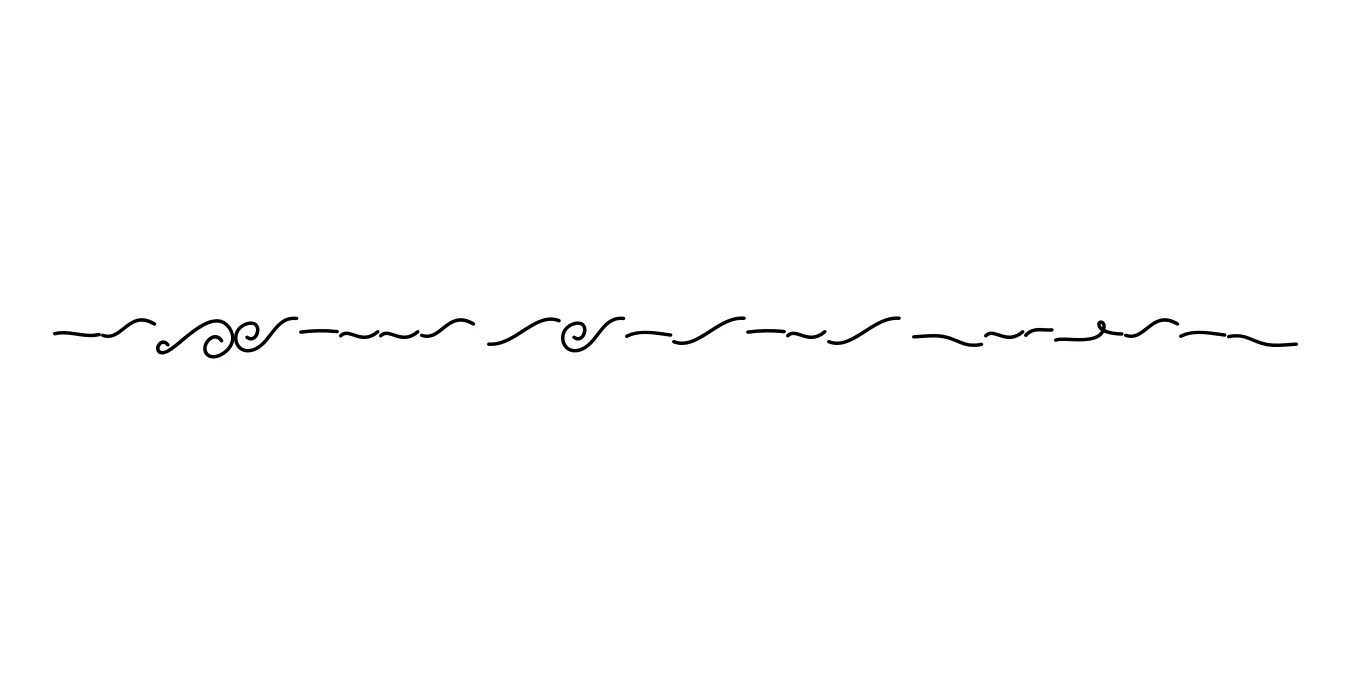
Flywheel Swashes Regular
Designed by Stephen Rapp
Flywheel Swashes Regular is a dynamic script typeface that draws heavy inspiration from the energetic hand-lettering and signage of mid-century Americana. Designed by Stephen Rapp of Aerotype, this font is part of a larger family that captures the essence of 1950s design, featuring fluid, rhythmic strokes and high-contrast forms. The Swashes Regular variant is particularly notable for its expressive flourishes, which add a layer of sophistication and motion to any typographic composition.
Crafted with a focus on OpenType functionality, the font includes a variety of ligatures and decorative alternates that allow designers to create custom-looking headlines. Its smooth, polished outlines and bold weight make it highly effective for display use, ensuring that it remains legible while making a strong visual statement. Whether used for nostalgic branding or modern editorial layouts, Flywheel Swashes brings a touch of authentic retro charm to the digital era.
Flywheel Swashes Regular Best Uses
Ideal for creating distinctive logos and visual identities with a nostalgic flair.
Highly effective for beverage labels, artisanal food products, and classic retail goods.
Perfect for high-impact headlines in posters, flyers, and digital campaigns.
Excellent for stylized quotes and eye-catching promotional graphics.